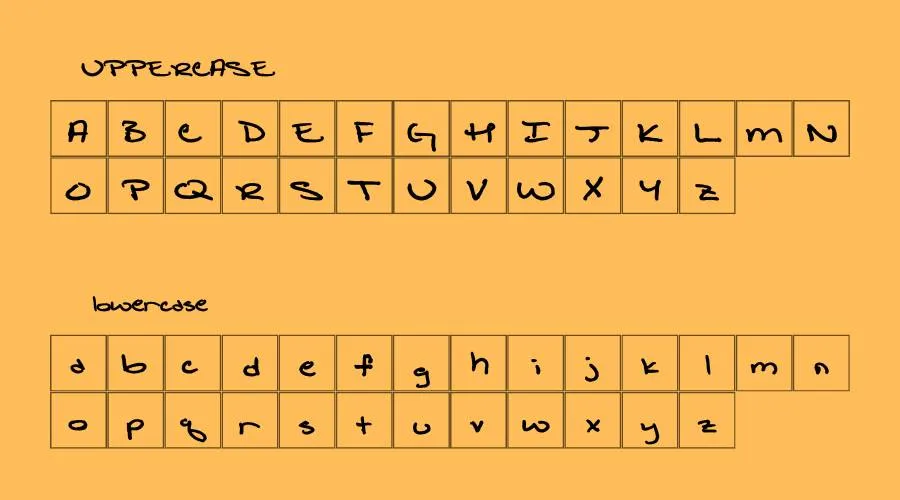
Shattered Print Font
About Shattered Print Font
Shattered Print Font is designed by Shatteredshards it is a script typeface with this font, you can create sophisticated, attractive, and unmistakable designs, which is ideal for marketing.
The font features have a traditional feel with a unique design. You'll be able to utilize this typeface as a copy-and-paste function.
It contains both upper- and lower-case letters, numbers, and some punctuation marks. The text style is flawless as long as each design demands a fun and unusual feel. There are a variety of ways to use this style for social media posts.
This typeface could be an awesome choice for any venture that needs a touch of shine. You'll produce this typeface from the online text style generator tool. The font corresponds to often utilized by creators to create designs that look lovely with desert dog hmk font.